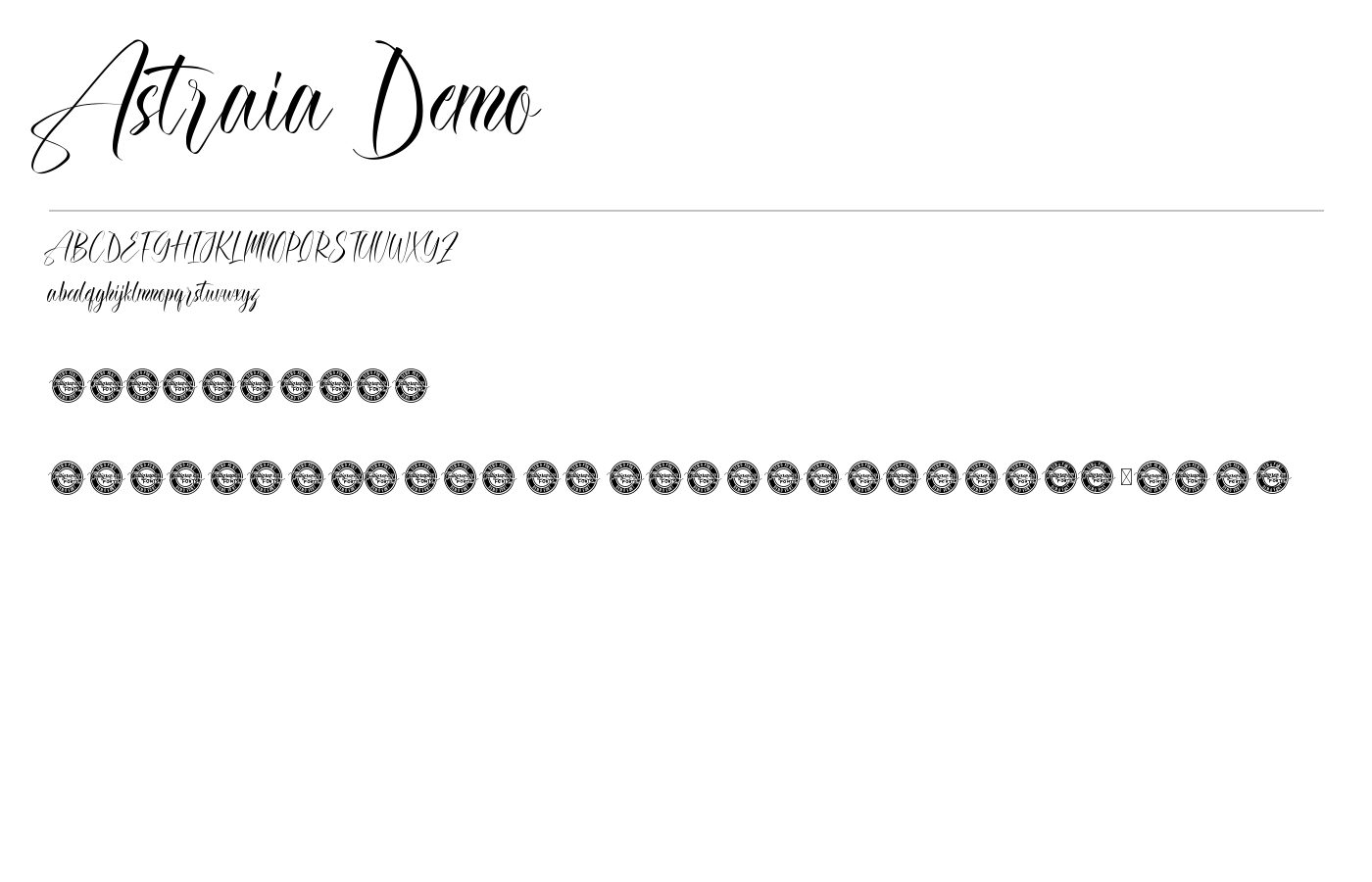
Astraia Demo is an elegant, handwritten script font characterized by its delicate, flowing strokes and refined, calligraphic style. Its thin, graceful lines and high contrast give it a luxurious and romantic feel, making it ideal for invitations, branding, and stylish editorial use where a sophisticated, personal touch is desired. This font works beautifully in larger display sizes, adding charm and elegance without losing readability.
Astraia Demo Font
About Astraia Demo Font